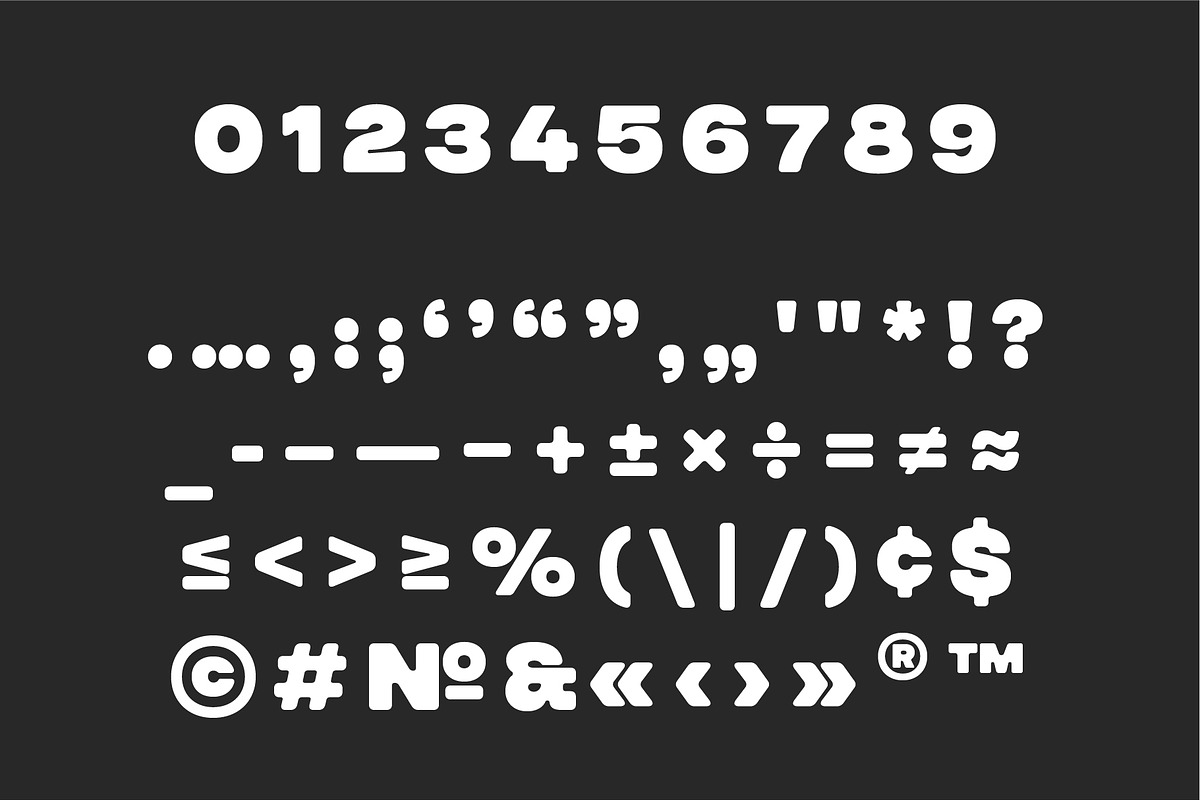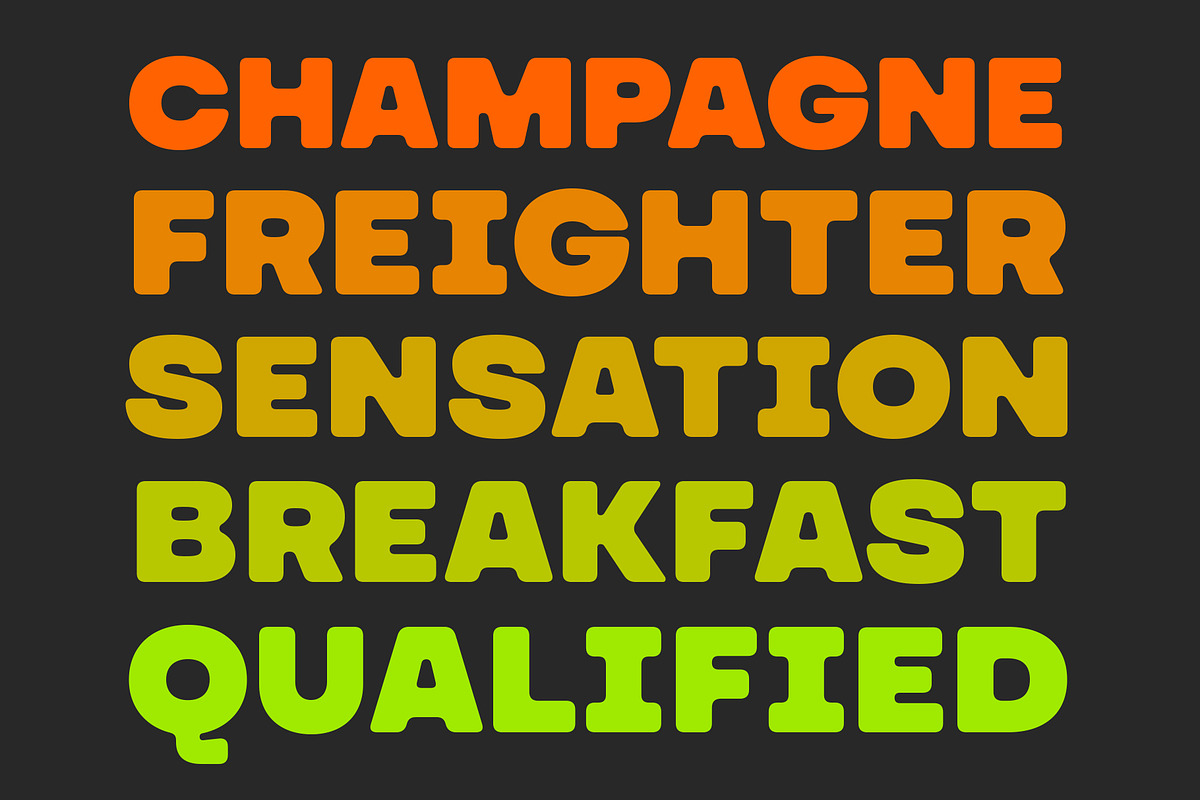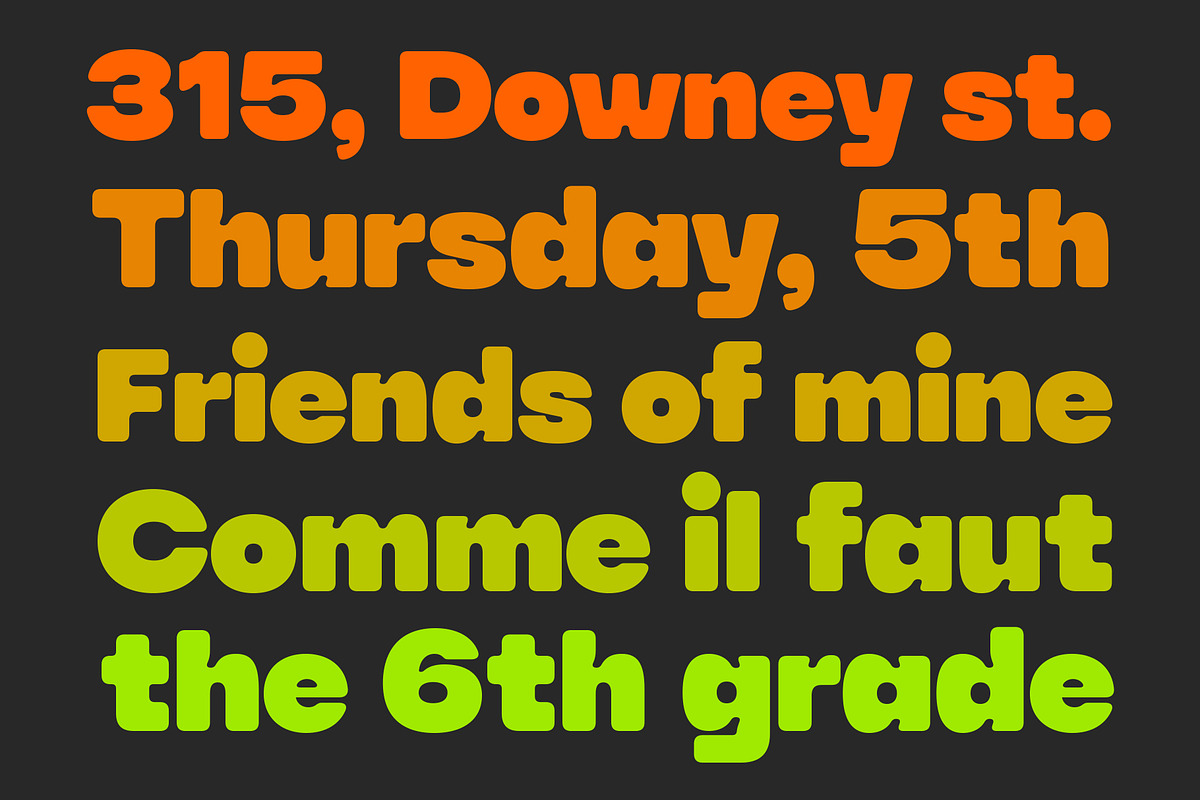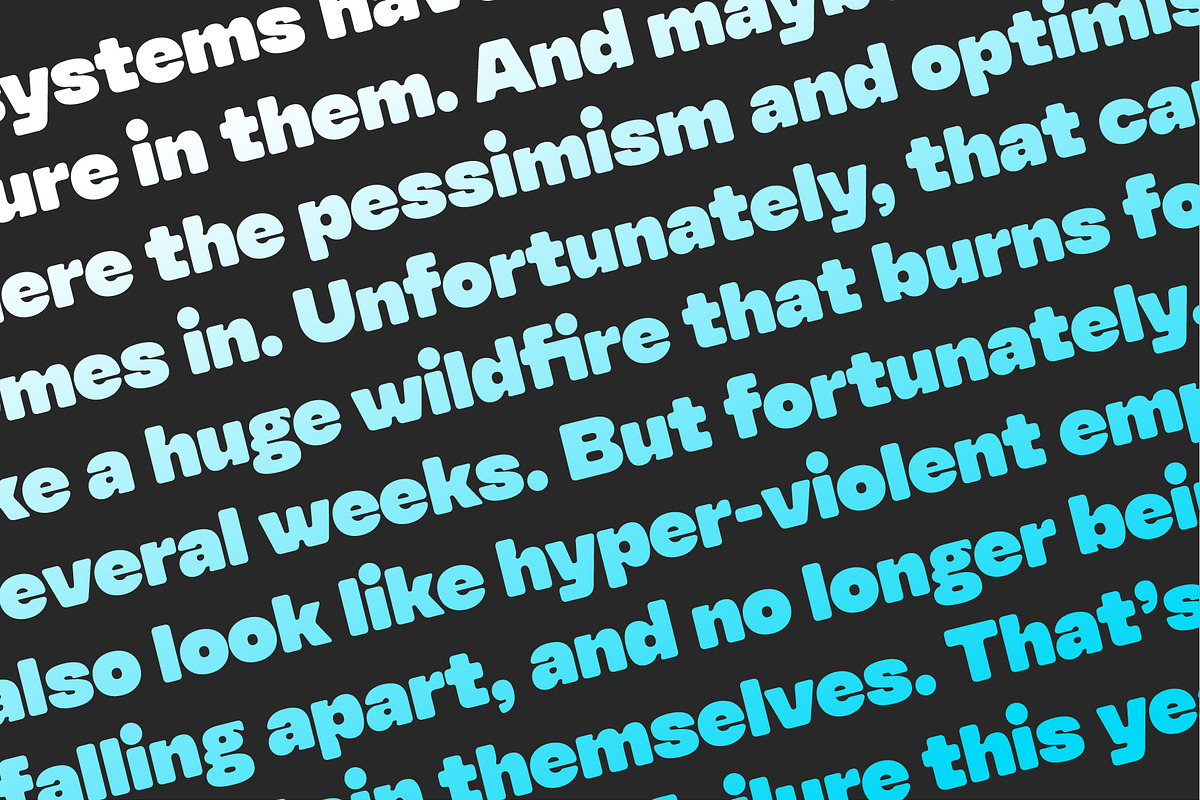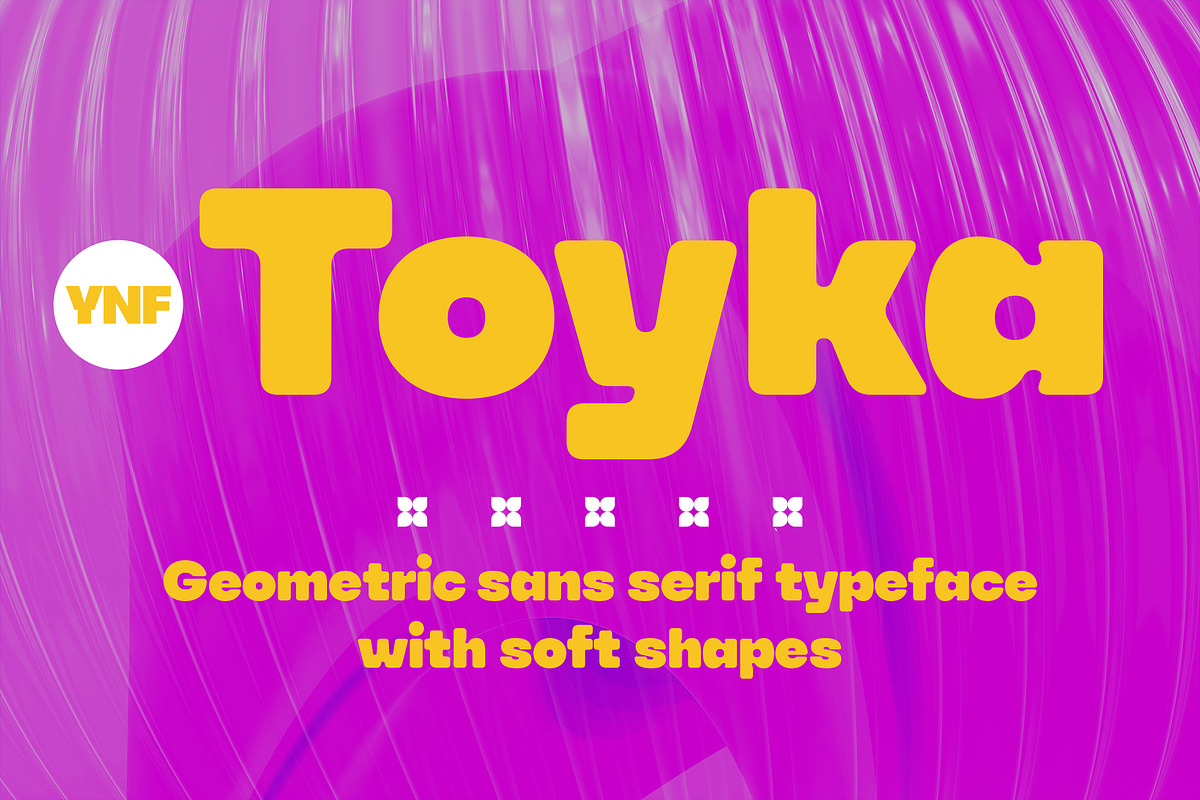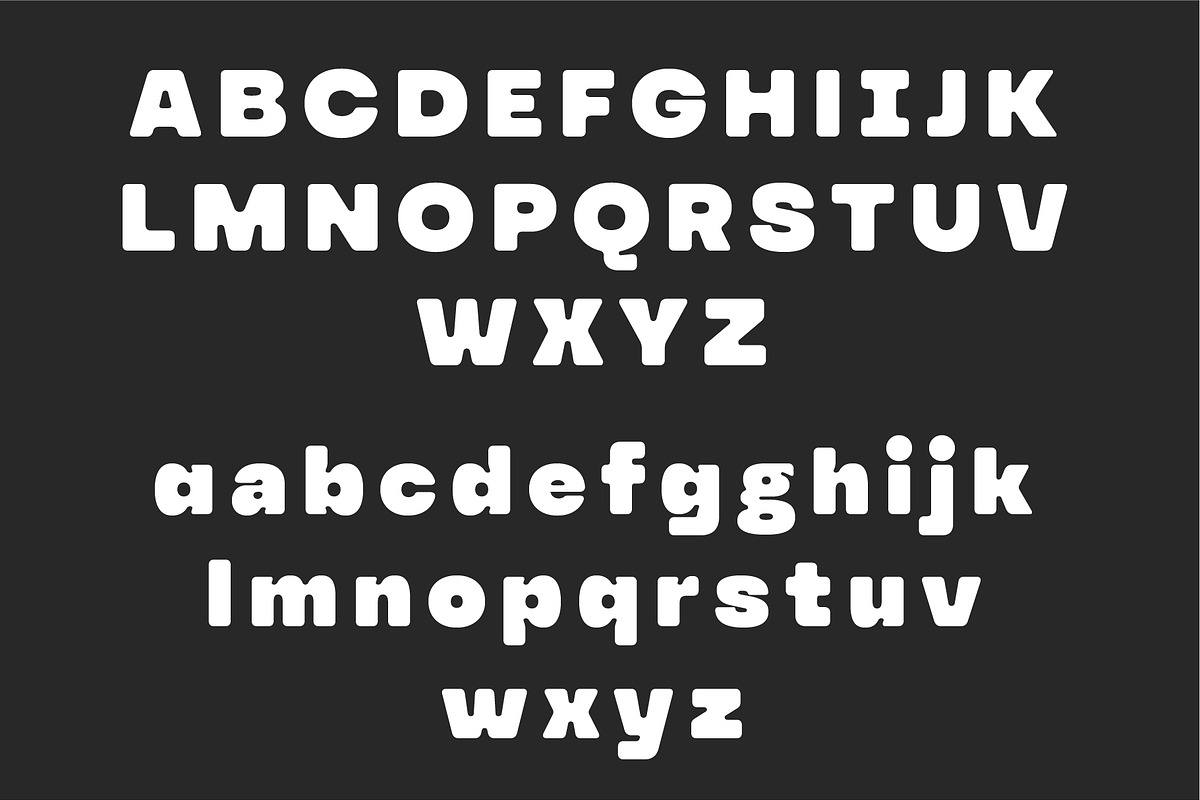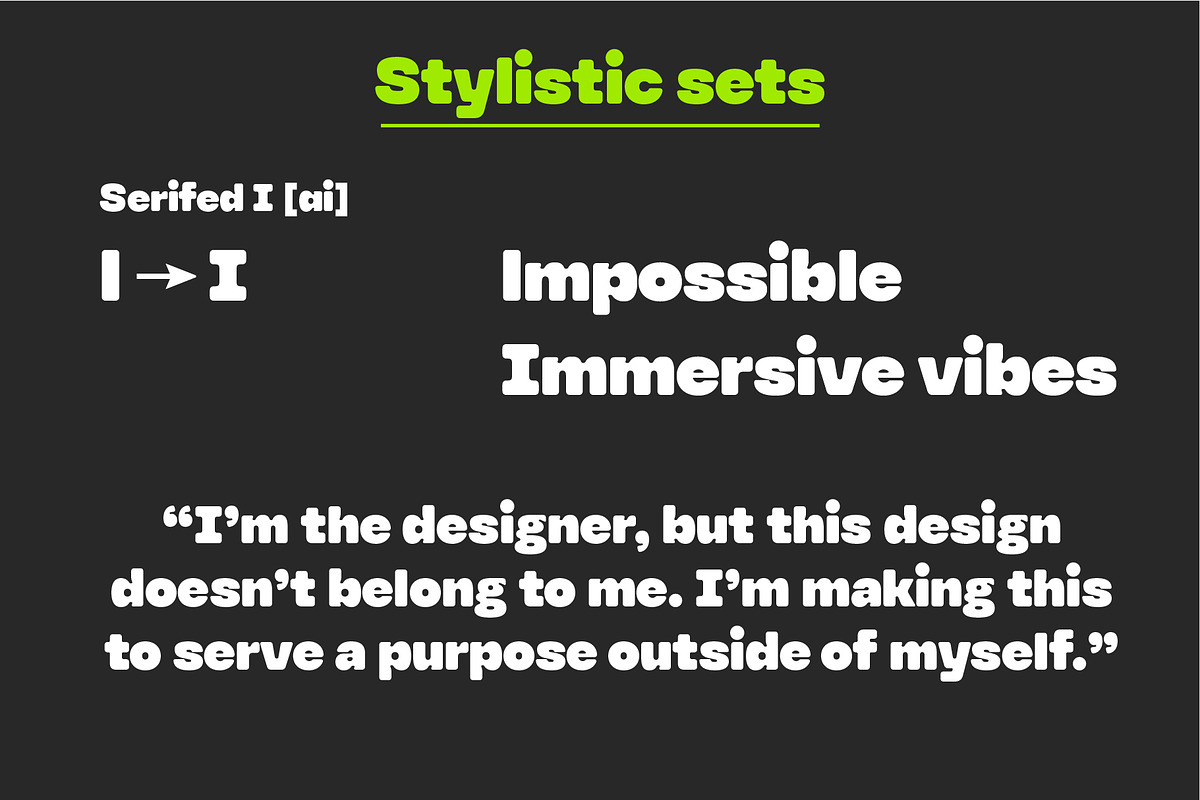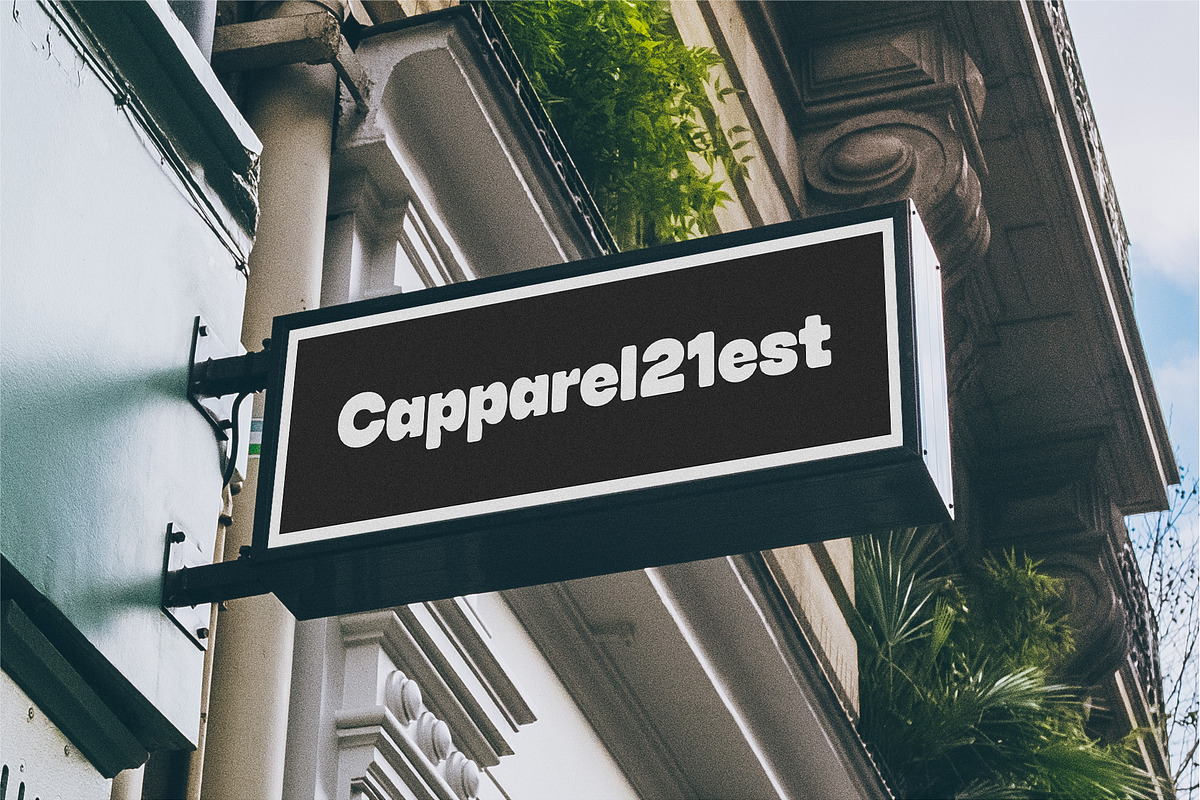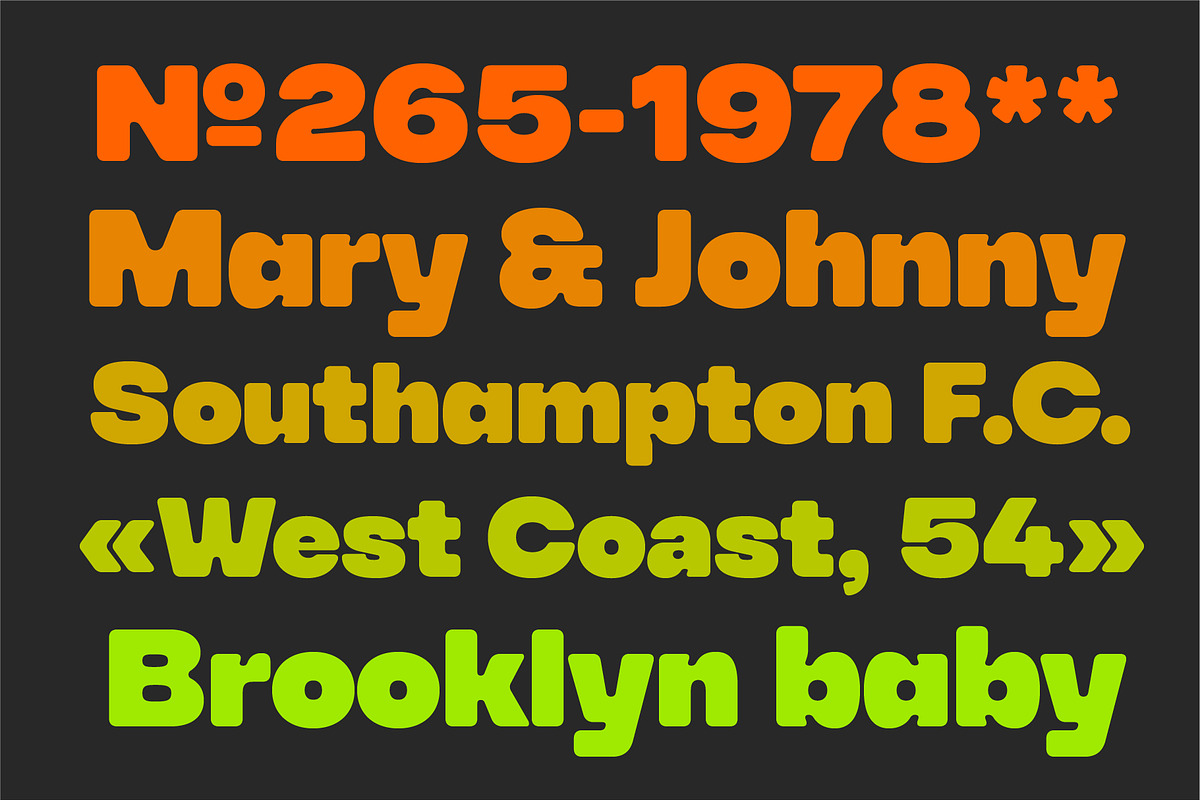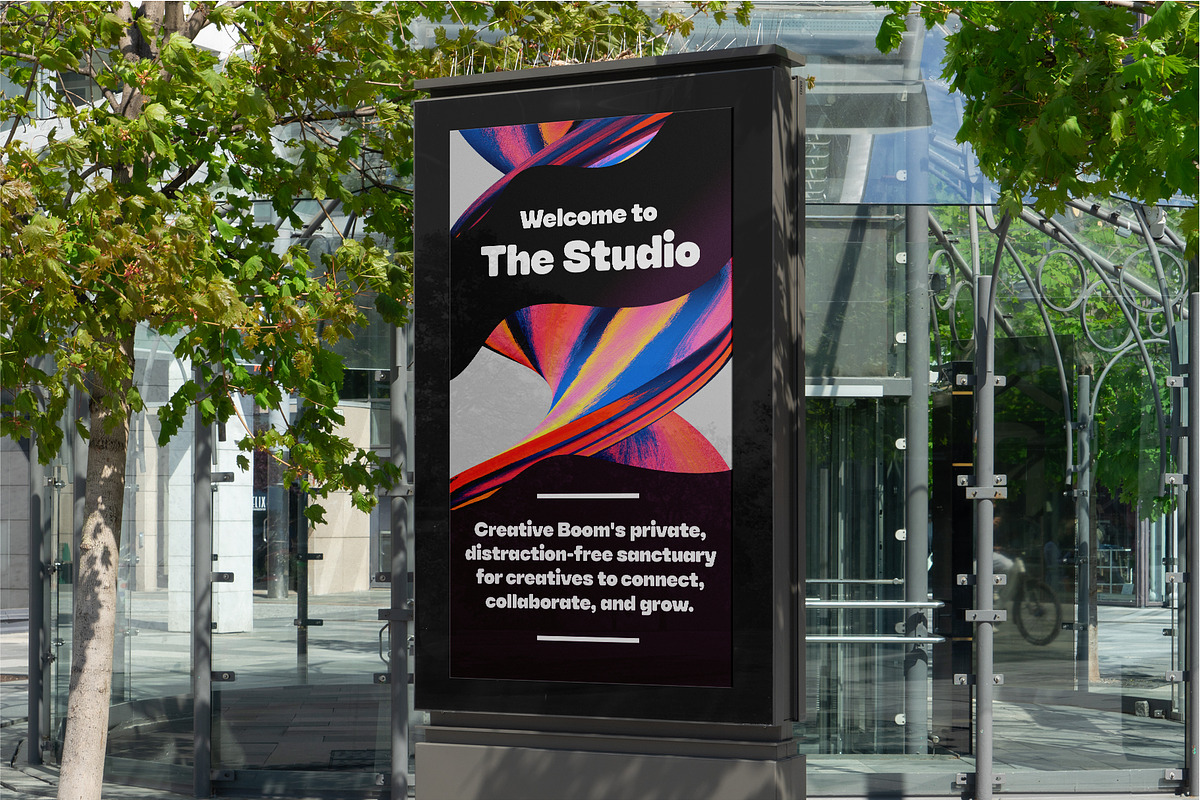
YNF Toyka | Display sans serif
Hello! Let me introduce you YNF Toyka — geometric soft sans serif. A very friendly appearance is well suited for advertising and branding projects. Only the most necessary things at an attractive price.
- Uppercase and lowercase letters
- Punctuation marks and other essential glyphs (see the list of glyphs in the presentation)
- Stylistic alternates